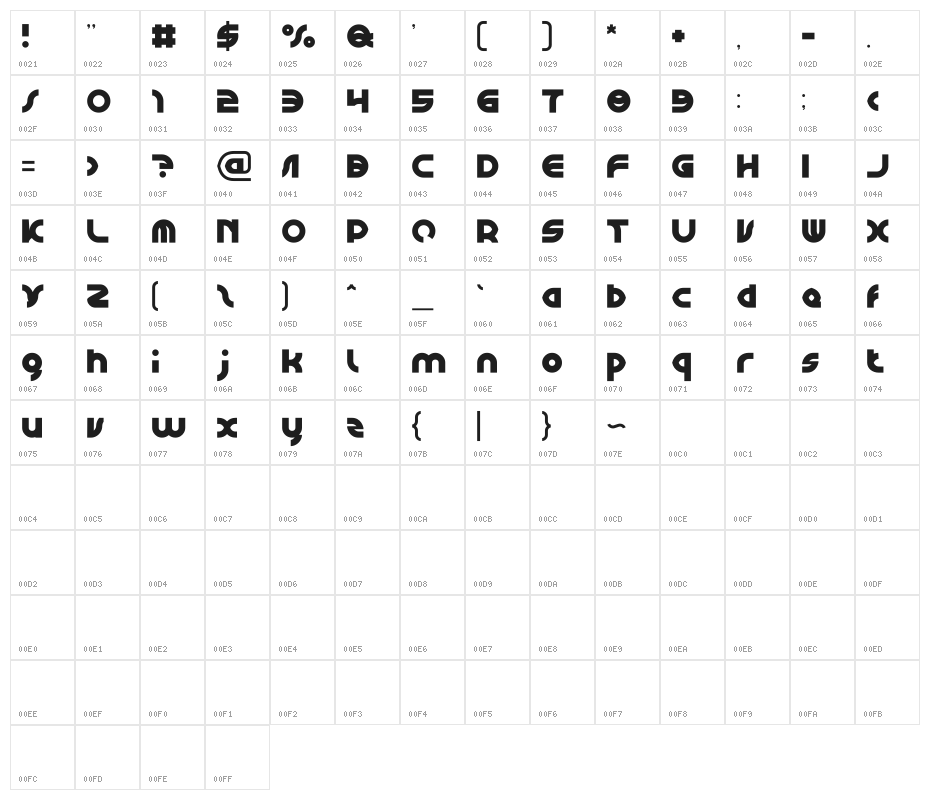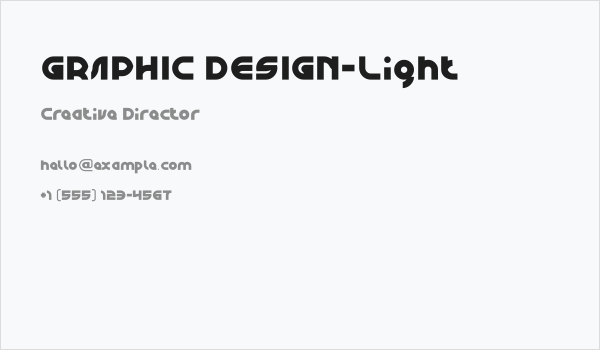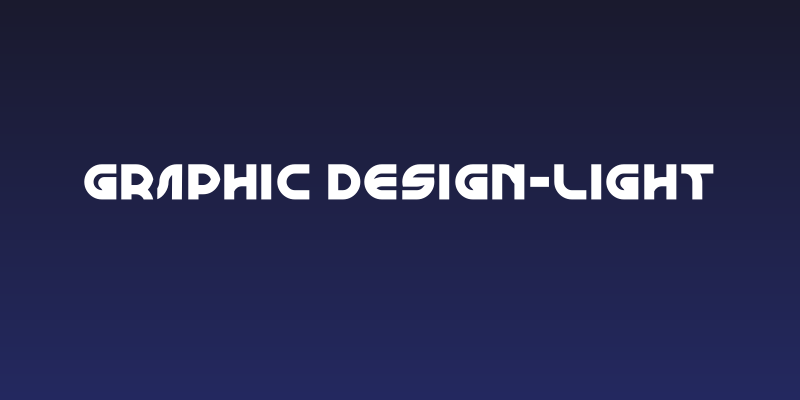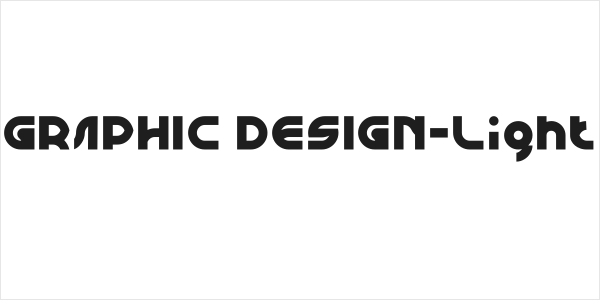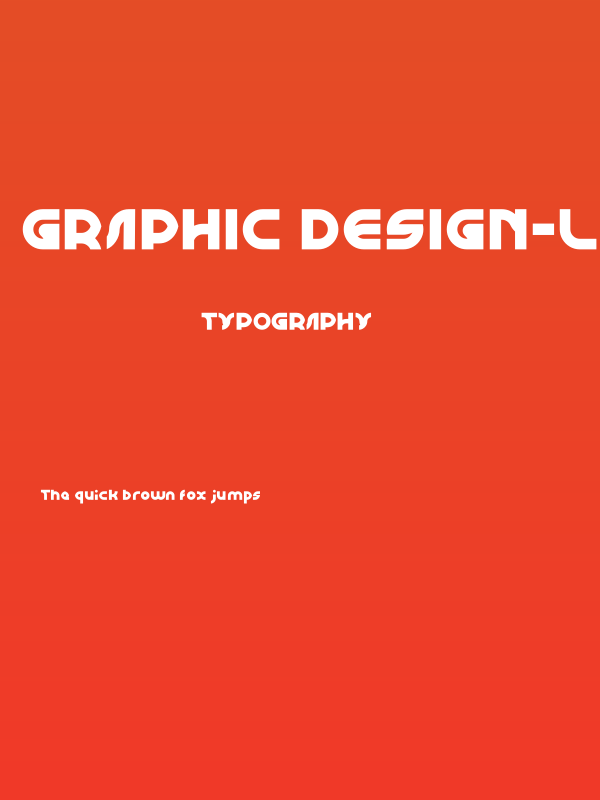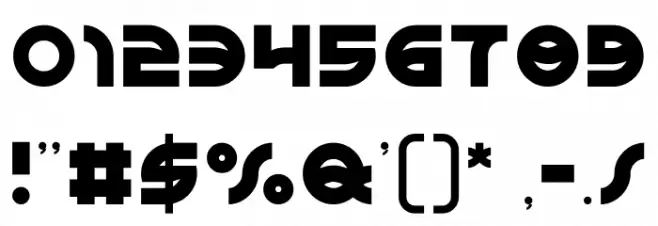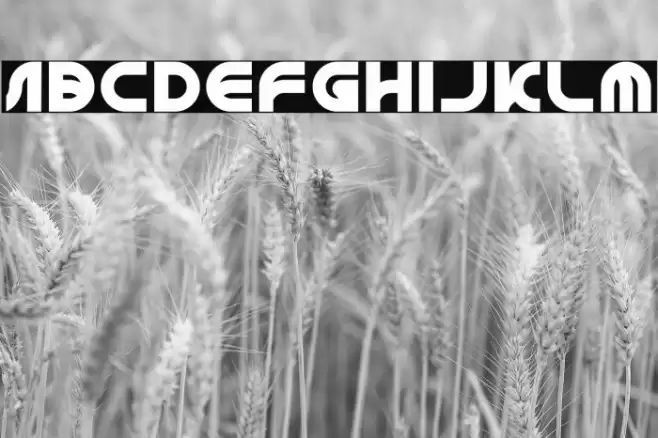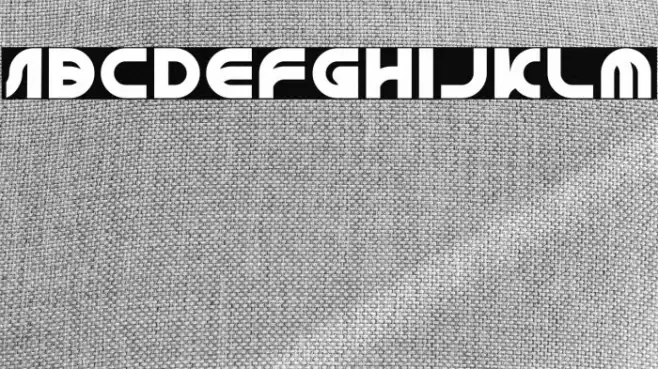
GRAPHIC DESIGN-Light Font
This font features a bold and geometric design with a futuristic flair. The characters are constructed with thick, uniform strokes and rounded edges, giving them a modern and sleek appearance. The uppercase and lowercase letters maintain a consistent style, with a focus on symmetry and balance. The numbers and special characters follow the same design principles, ensuring a cohesive look across all elements. The font's unique style makes it stand out, making it ideal for projects that require a strong visual impact.
| Proposed Projects | Ideal for branding, posters, headlines, and any design project that requires a modern and impactful look. |